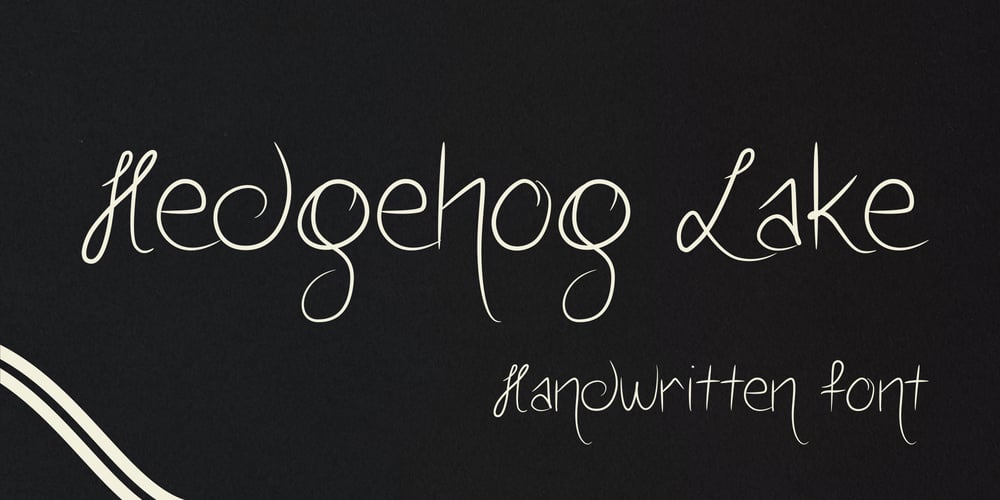
Hedgehog Lake Font Family was designed by Tom Simons and published by Tom Simons. Hedgehog Lake contains 2 styles and family package options. “Can you write this card? You have the best handwriting.” Was commonly heard question by Karin that inspired the creation of this font. Now anyone is able to write in her unique style. Hedgehog Lake includes over 400 glyphs for languages based on the latin alphabet and comes in two weights.Perfect for designs that need a human touch like invitations, titles, and more.